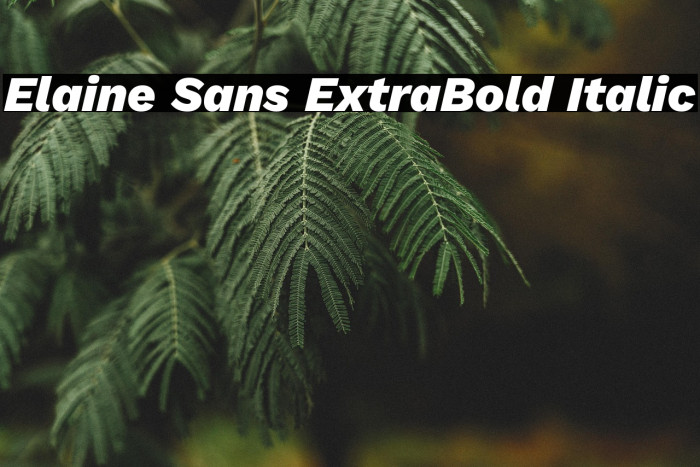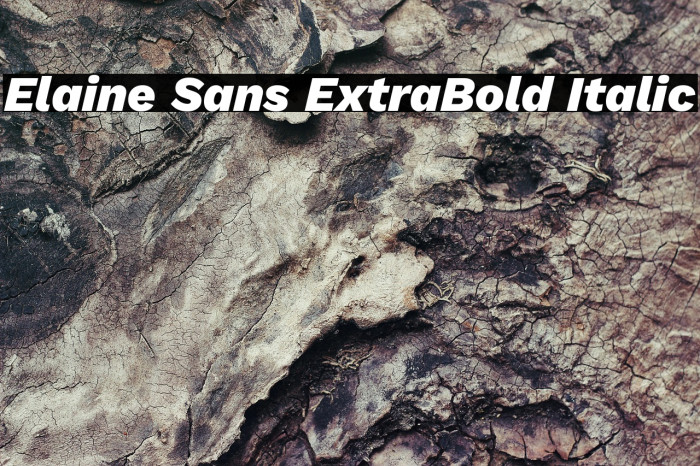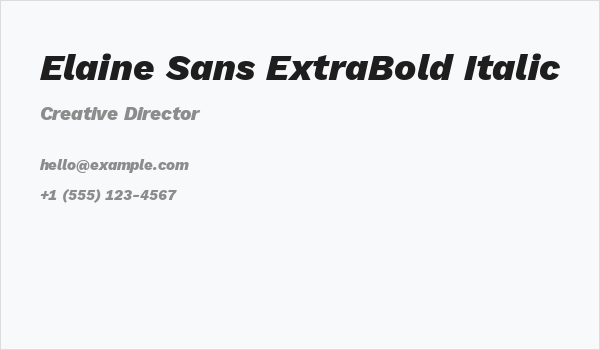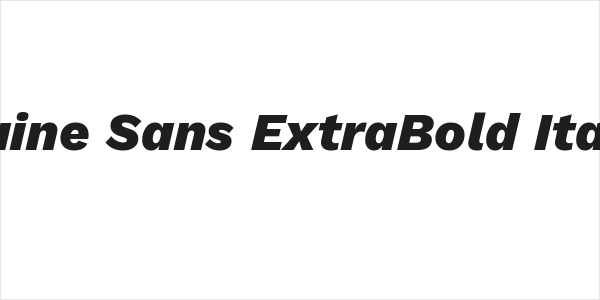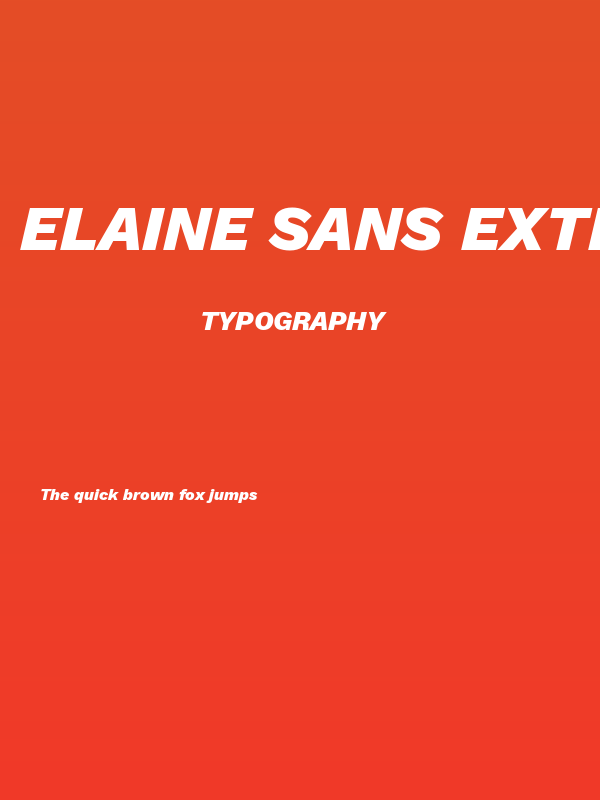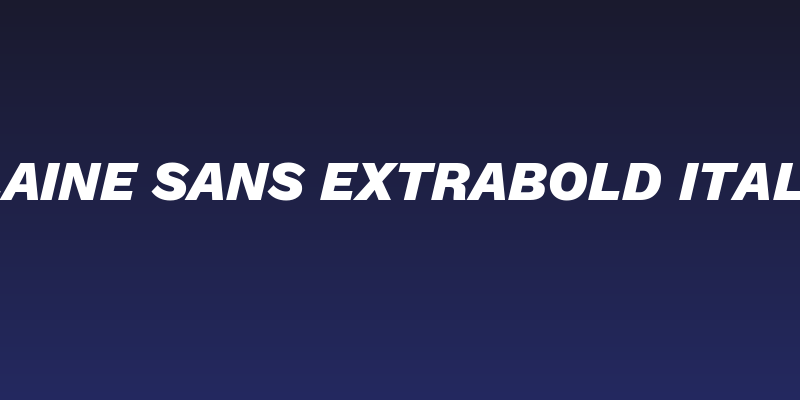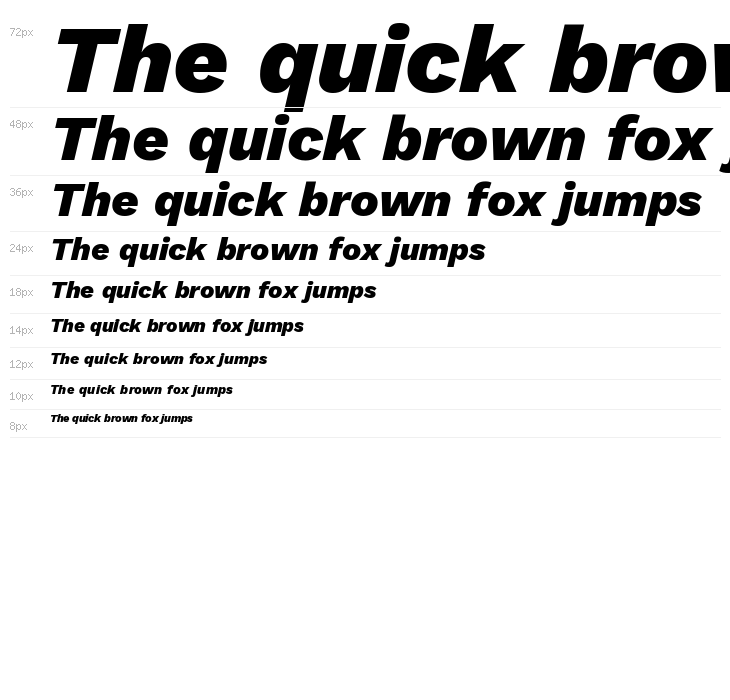
Elaine Sans ExtraBold Italic Font
Elaine Sans ExtraBold Italic Description
This typeface exudes a bold and dynamic presence, characterized by its extra bold weight and italic style. The letters are designed with a strong emphasis on horizontal strokes, giving them a robust and impactful appearance. The italic slant adds a sense of motion and energy, making it suitable for attention-grabbing headlines and titles. The characters are well-spaced, ensuring readability while maintaining a compact and cohesive look. The numerals and special characters are crafted with the same boldness, ensuring consistency across all elements of the typeface.
| Proposed Projects | Ideal for branding, advertising, headlines, and posters where a strong and dynamic impression is needed. |